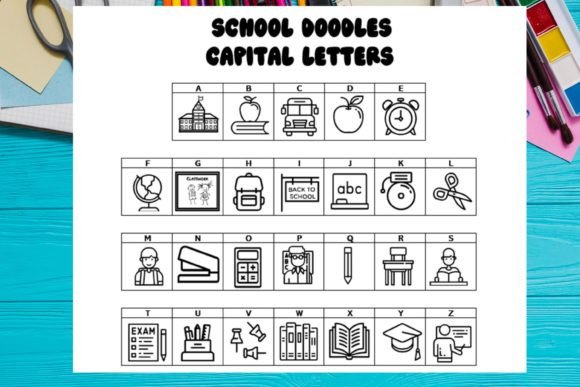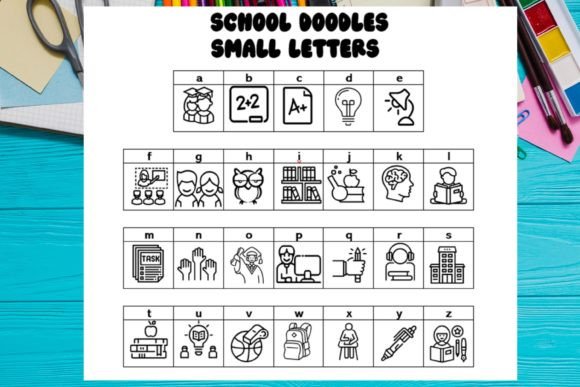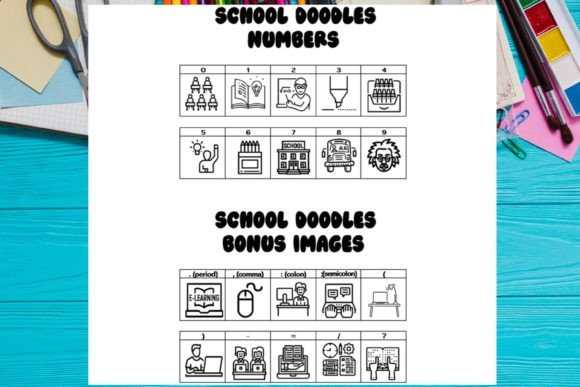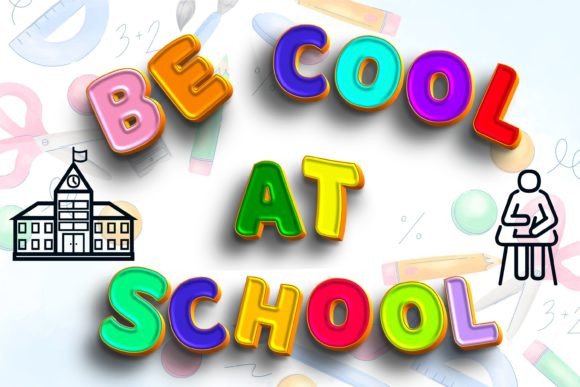
Introduction to School Doodles Font
Who hasn’t felt that spark of creativity when brainstorming ideas for an educational project? As you sit at your desk, surrounded by papers, markers, and laptops, the excitement builds up. You envision a colorful poster, a playful card, or a fun journal page that will capture your students’ attention. But, let’s be honest, sometimes our imagination runs dry, and that’s where the School Doodles Font comes to the rescue.
This fantastic design resource offers a treasure trove of high-quality doodles and dingbats that can elevate any creative project. With its transparent background, you can easily incorporate these doodles into your designs, making them perfect for cards, posters, planners, journals, assignments, social media posts, or tests. The School Doodles Font is a free download that’s waiting to unleash your creativity and bring your ideas to life.
Key Features of School Doodles Font
- High-quality, hand-drawn design ideal for creative projects, such as educational materials, posters, and flyers.
- Transparent background, allowing for easy layering and customization in design software.
- Unique, playful style that adds a touch of whimsy and creativity to any design project.
Honest Review: School Doodles Font
I recently had the chance to work with the School Doodles Font, and I must say it’s a great addition to any designer’s toolkit. The high quality of this font is immediately apparent, with crisp lines and a charming, hand-drawn feel that’s perfect for creative projects.
One of the standout features of the School Doodles Font is its versatility. It’s available as a free download, making it an excellent design resource for anyone looking to add some personality to their work without breaking the bank.
- ✨ Charming, hand-drawn feel that adds a personal touch to any project
- ✨ High-quality design that looks great on a variety of backgrounds, including transparent backgrounds
- ✨ Versatile and suitable for a range of creative projects, from branding to editorial work
- ⚠️ Limited character set, which may be a drawback for designers working on longer projects
- ⚠️ May not be suitable for projects that require a more formal, serious tone
Overall, I’m impressed with the School Doodles Font and would definitely recommend it to designers looking for a unique and engaging font for their creative projects.
Tips for Getting the Most Out of School Doodles Font
To get the most out of School Doodles Font, use it in a high-quality design project where its creative and playful style will shine. You can also use it as a design resource for creating educational materials, such as worksheets, posters, and presentations.
School Doodles Font is perfect for creating educational materials, such as worksheets, posters, and presentations. You can also use it to add a creative touch to your blog posts, social media graphics, and marketing materials. With its transparent background, you can easily layer it over images and other design elements.